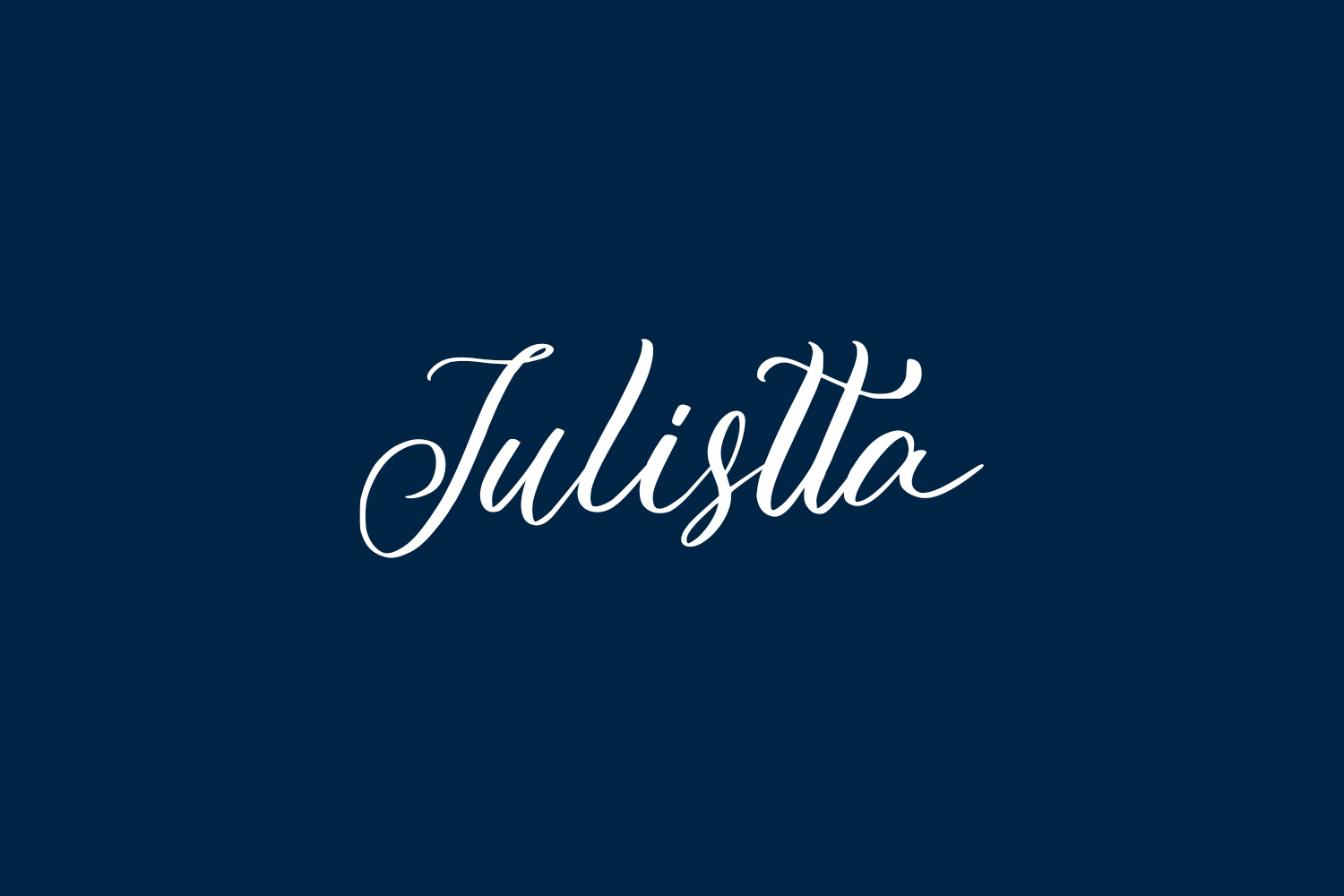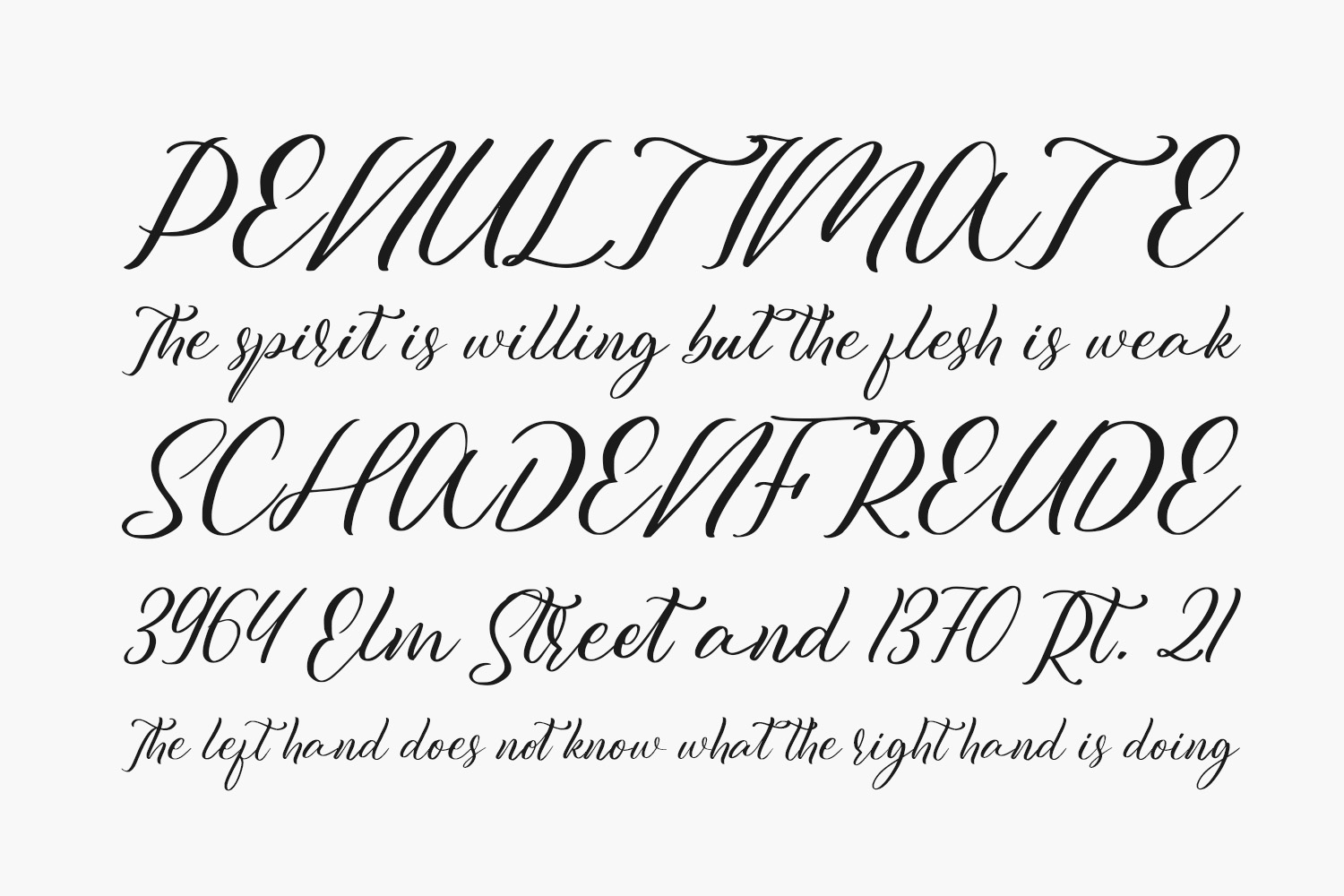
Julistta Free Font is a beautiful and refined script font. It has a classy, elegant, and modern look that can be used for logos, branding, invitations, stationery, wedding designs, social media posts, and much more. Julistta Free Font was designed by FatmaStudio and is free for personal use only. Please purchase the full version for commercial use.